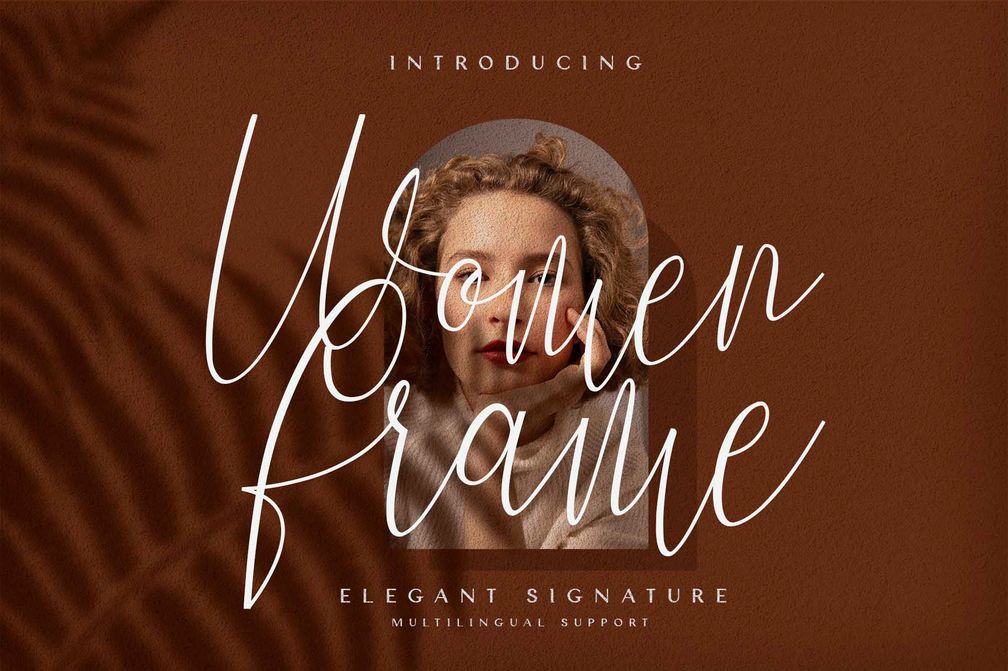
Women Frame
Women Frame is a modern calligraphy font with beauty pressure. I hope this font perfect for creating signature logos and watermarks for photography studio or wedding invitation. Women Frame includes full set of beautifull hand lettered uppercase and lowercase letters, numerals, a large range of punctuation and ligatures. All lowercase letters include beginning and ending swashes